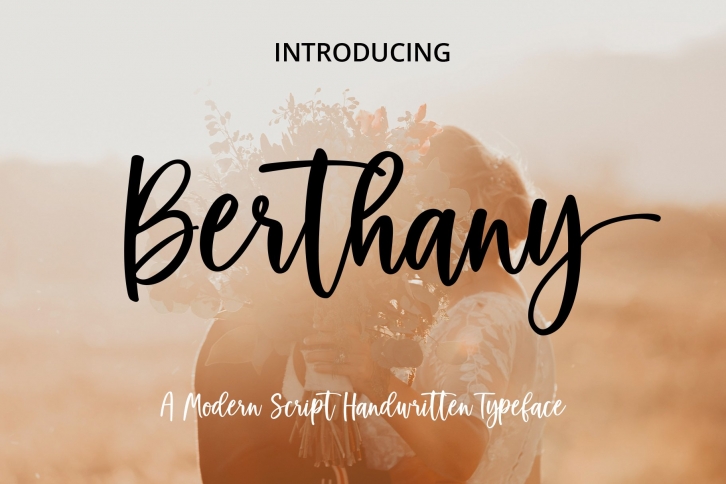
Berthany Modern Script is a beautiful font that was designed by Siwox Studios. It's a great choice for designers and creatives who need such a font. It was released on February 20, 2022 and the file size is 2.61 MB. Berthany Modern Script may give a more youthful, expressive and casual look to your project. It is a very beautiful, refined, elegant, and high-quality font.